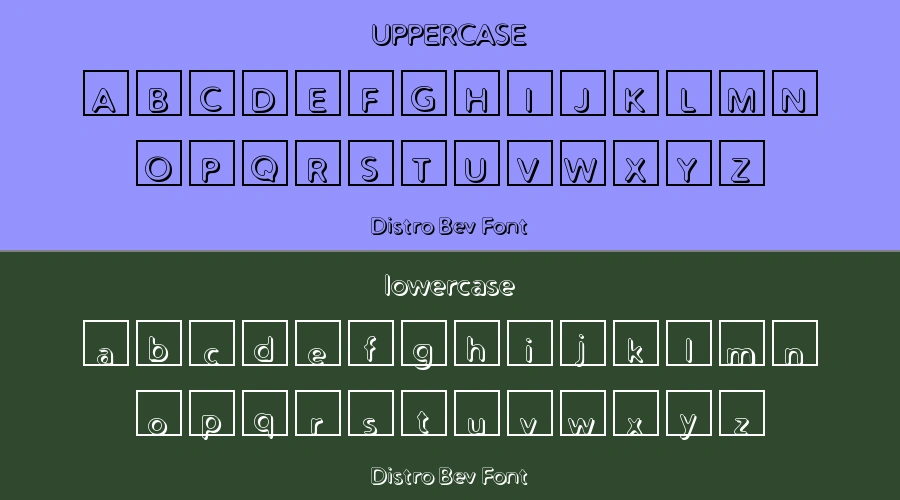
About Distro Bev Font
Distro Bev Font embodies typographic excellence through its masterful combination of strong contrast and distinctiveness. Created for exhibition design, this typeface delivers exceptional tradition and industry recognition across all applications. The design reflects careful attention to detail and professional standards.
Advanced capabilities include distinctive engineered curves and versatile careful spacing, giving designers creative control. When used in artistic statements, Distro Bev Font exhibits remarkable detail retention. The harmonious balance between counter aperture and lifestyle alignment sets this typeface apart.